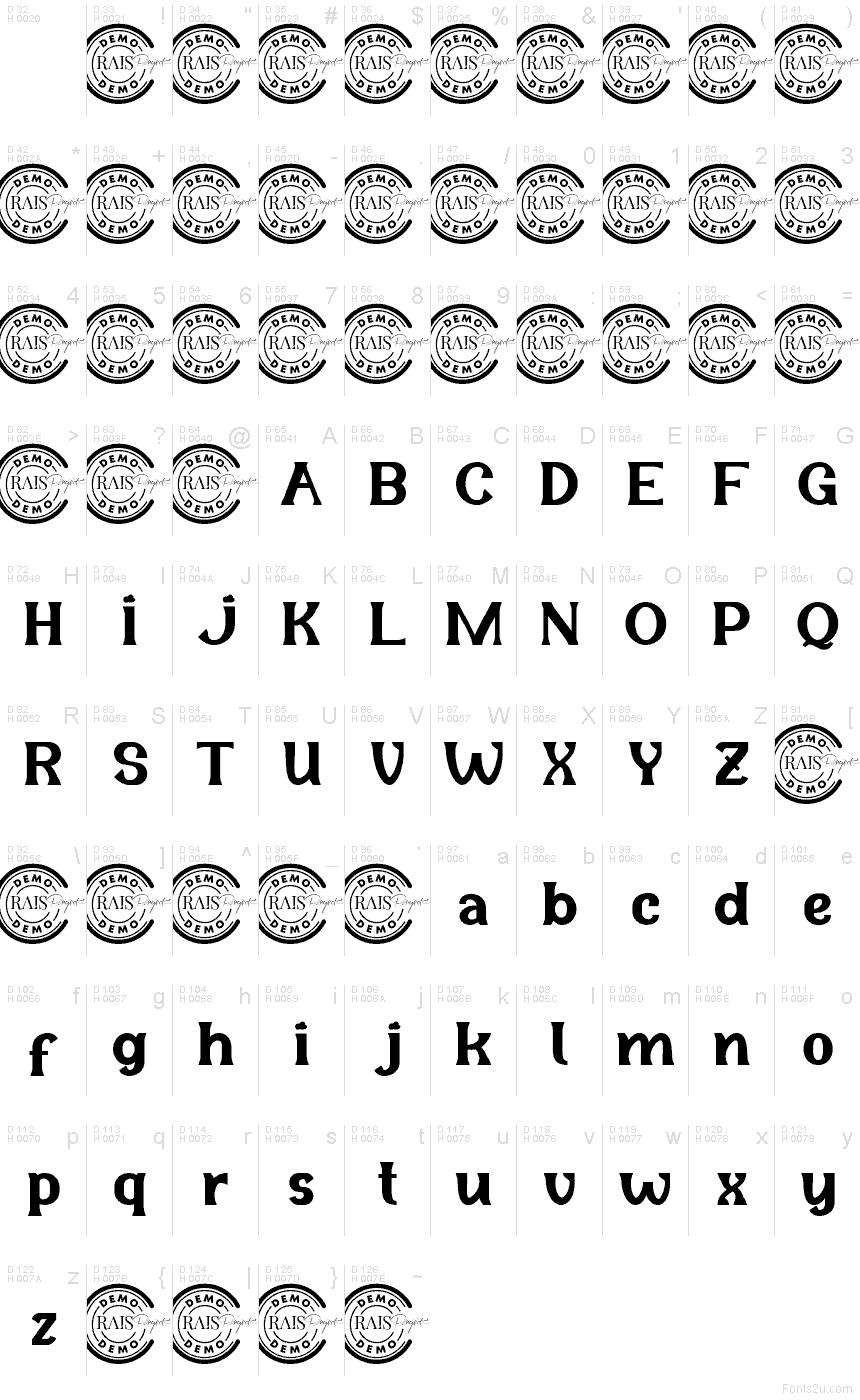
Nihiwatu Demo
Nihiwatu font by RaisProject is a decorative and engaging typeface with an artistic twist. The bold display characters are all custom-made with minimal to no corners present, leaving the font appear effortlessly fancy, smart, and inventive. Although quite simple and readable, the distinctive character design makes it carry a special feel of curiosity whenever one closely examines this type.
Possible creative uses may involve commercial product packaging design like labeling coffee or wine products for example. Other scenarios include branding for organic cafés, restaurants, beach resorts, hotels and any nature-related initiative. Less typical uses can also be done in modern magazine headlines as well as artsy Pinterest boards!